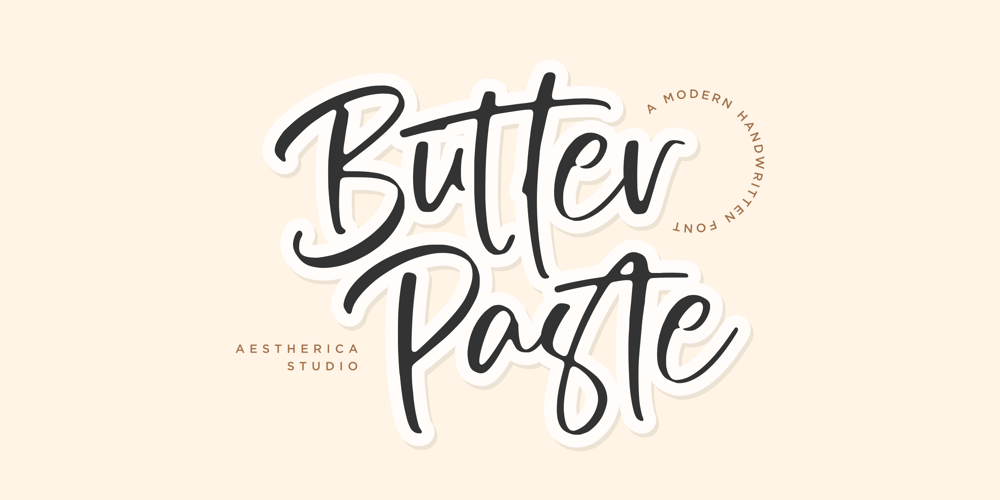
Butter Paste
Butter Paste font
Butter Paste Font Family was designed by Muhammad Fathurrohman and published by Aestherica Studio. Butter Paste contains 1 styles and family package options. Butter Paste is a handwritten font that blends perfectly and is perfect for your project.You can use it for logos, branding, greeting cards, t-shirts, cases, posters, and more.